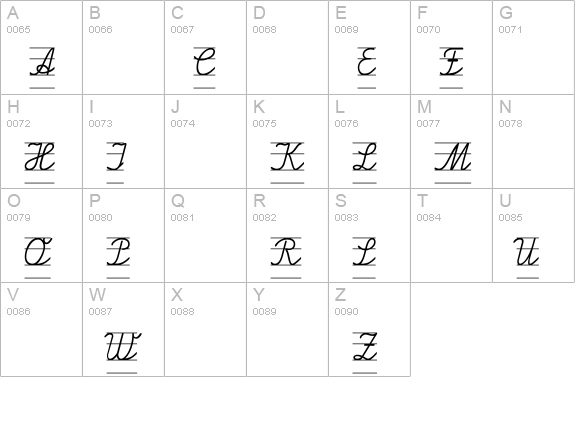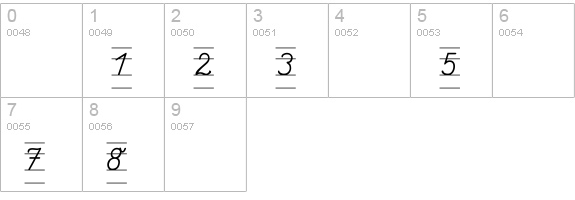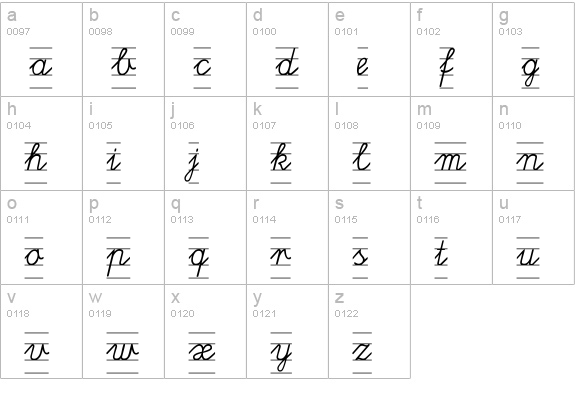
Latline Font Details
Introducing Latline, a captivating and versatile font that will bring a touch of elegance to any design project. With its sleek and modern lines, Latline exudes a sense of sophistication and professionalism that is sure to make a lasting impression. This exquisite font offers a wide range of possibilities, making it suitable for various creative endeavors. Whether you're designing a logo, crafting an eye-catching advertisement, or creating stunning typography for a website, Latline will effortlessly elevate your work to new heights. One of the most remarkable aspects of Latline is that it is available for free. That's right, this exceptional font can be downloaded at no cost from FontsMarket.com. We believe in providing designers with access to high-quality resources without breaking the bank, and Latline is a testament to that commitment. Not only is Latline visually stunning, but it also boasts a user-friendly nature. Its legibility ensures that your message will be clear and concise, while its graceful curves and clean lines add a touch of sophistication. This font truly embodies the perfect balance between style and readability. With a wide range of weights and styles available, Latline offers endless possibilities for customization. Whether you prefer a bold and impactful look or a more delicate and refined aesthetic, this font has got you covered. Say goodbye to generic and uninspiring typography, and embrace the elegance and versatility of Latline. Download this remarkable font for free from FontsMarket.com and elevate your design projects to new levels of excellence.